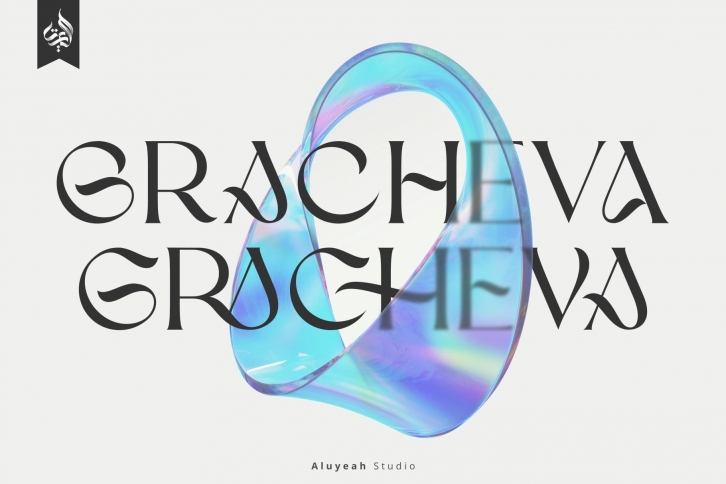
Gracheva is a trendy and unique font with an authentic style. It was designed by Aluyeah Studio and it's a great choice for creative people who need such a font. It was released on June 5, 2022 and the file size is 10.15 MB. Gracheva will add an organic vibe to any design idea!